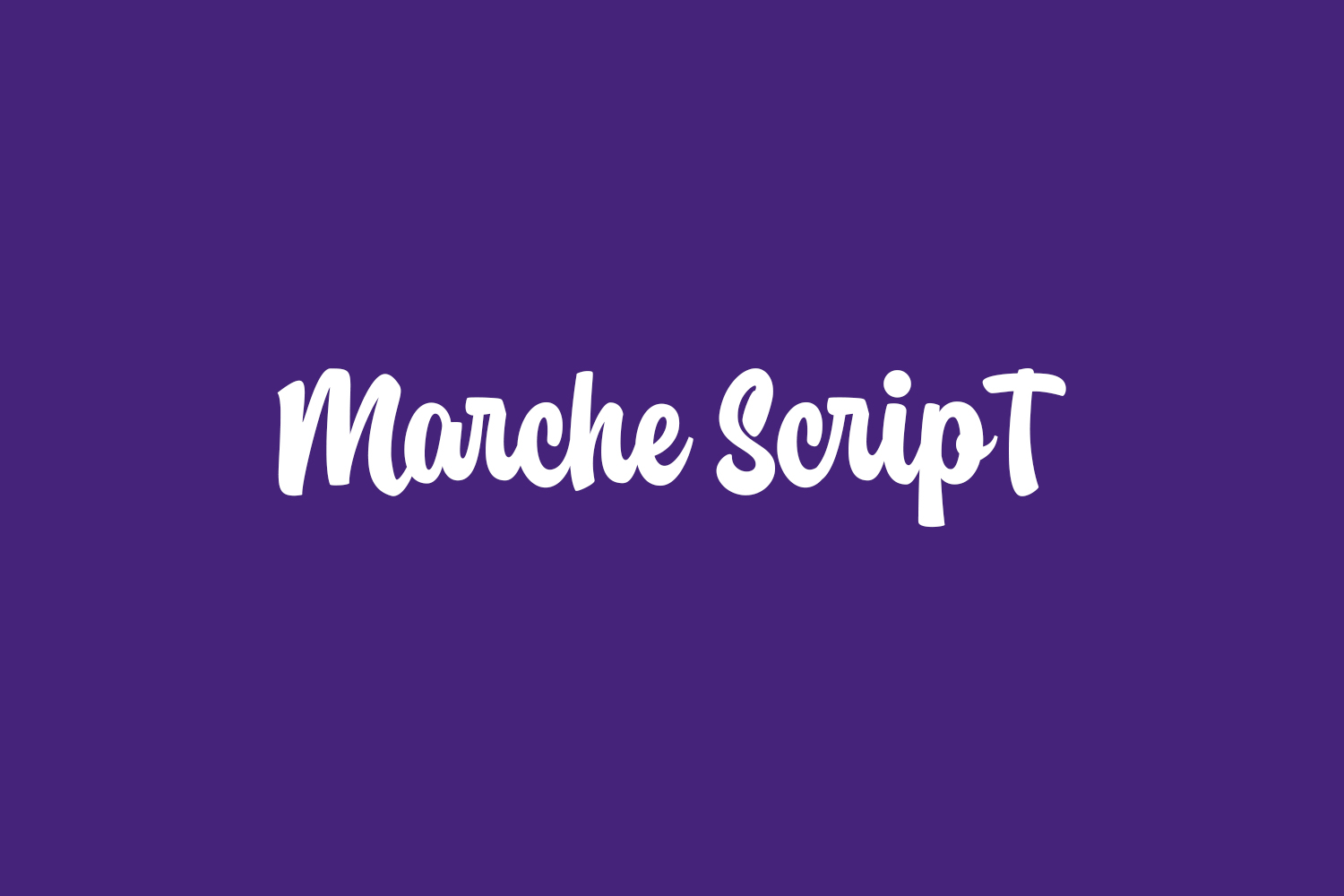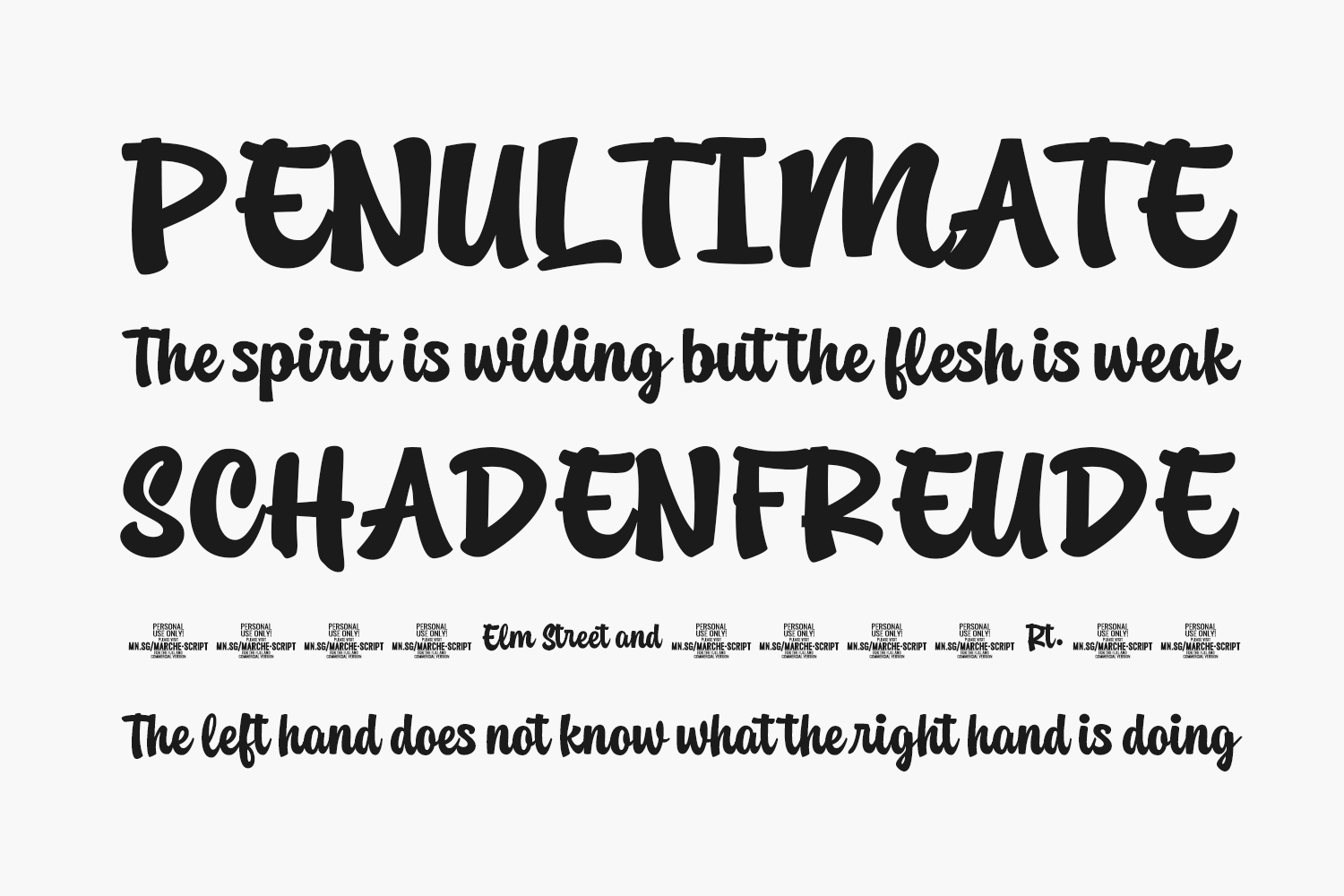
Marche Script Free Font is a typographical masterpiece that captures the essence of modernity and elegance. Its sleek and minimalist design is perfect for any creative project that requires a touch of sophistication. The letterforms are crafted with precision and attention to detail, ensuring legibility and readability at any size. The font features clean lines and a subtle curve, which gives it a fluid and dynamic feel. Whether you’re designing a logo, a website, or a magazine layout, Marche Free Font is sure to make a lasting impression on your audience. Its unique blend of simplicity and refinement is the perfect choice for designers who want to create something truly exceptional. Marche Script Free Font is a demo and free for personal use only. Please purchase the full version for commercial use.